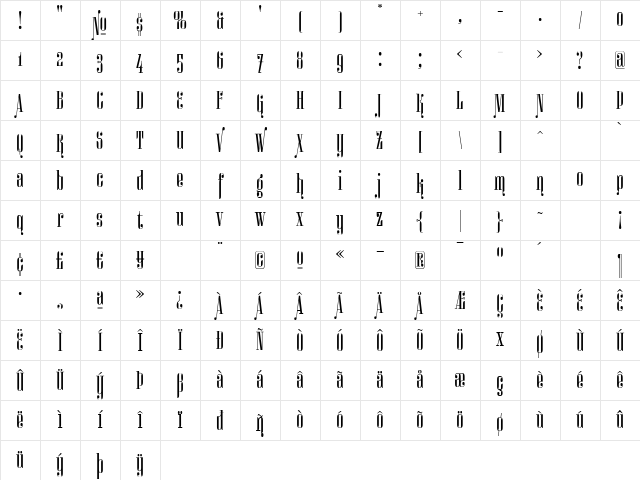
Miserichordia Alternatives Regular Free Font
Miserichordia Alternatives Regular
Design Context for Miserichordia Alternatives
Miserichordia Alternatives is a composed and adaptable typeface that performs quietly and consistently across a wide range of design contexts.